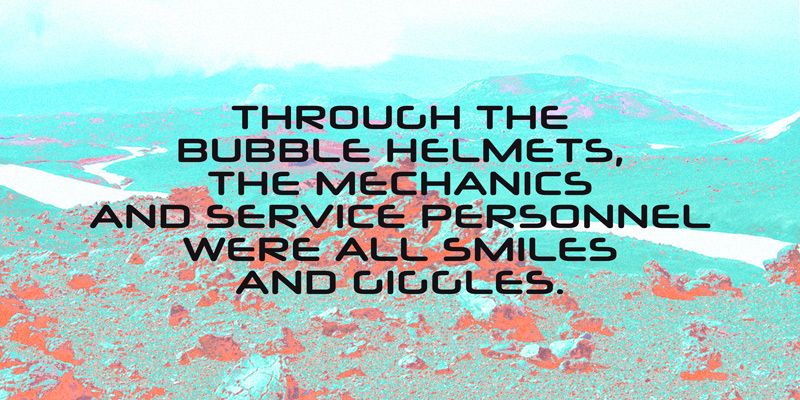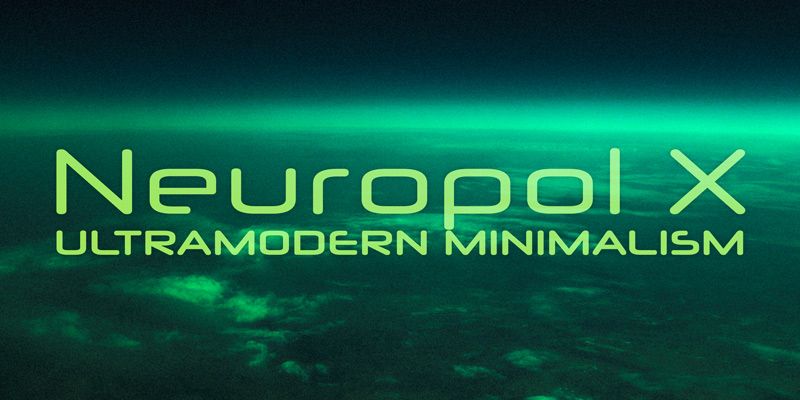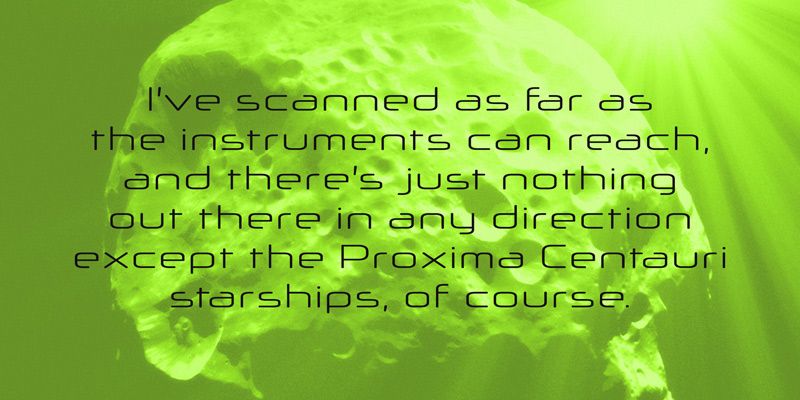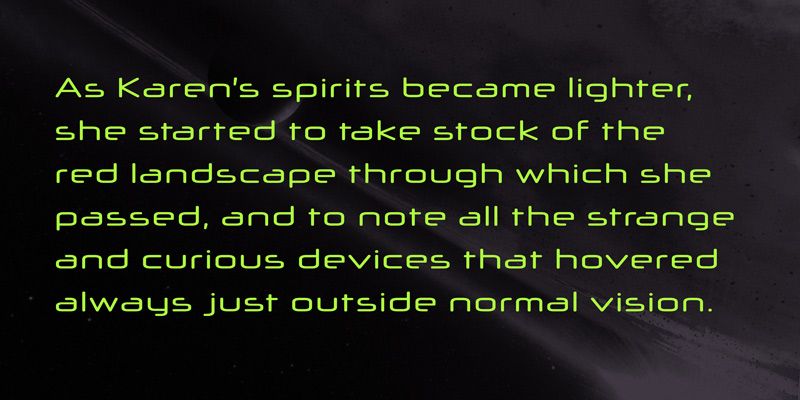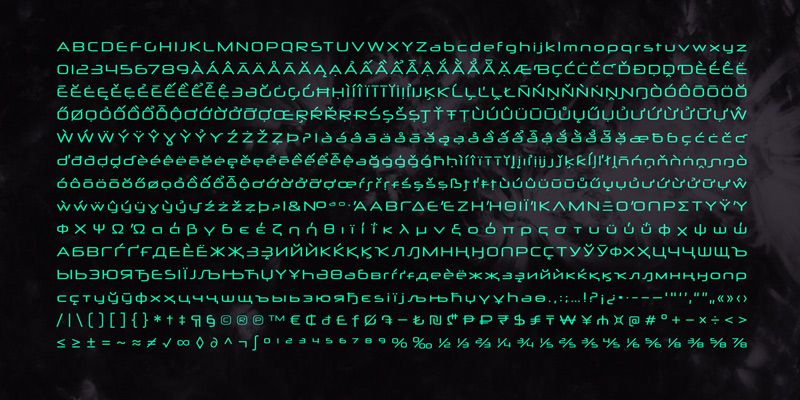
Neuropol Nova and Neuropol X turn rounded-square geometry into a clear science-fiction voice. Their wide stance and smooth corners give names for vehicles, software, machines, and imagined worlds an immediate technological setting. Neuropol Nova adds a distinct upright voice; Neuropol X moves from Light through Bold, with matching italics. That gives a designer a restrained line, a stronger title, and a faster-moving italic within the same visual idea. It can connect a product name, equipment marking, and exhibition heading through the same memorable geometry.